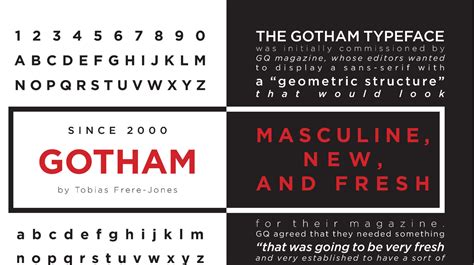
Gotham Font Alternative. This is perfect if you want to find something similar and affordable. This font is completely free to use.
Like gotham, it is inspired by urban signage: Quickly navigate to other fonts: But the characters are not as wide. Web you’re reading free font alternatives: This is perfect if you want to find something similar and affordable. Intro · apercu · avenir · circular · din · futura · gotham · helvetica · proxima nova · times new roman. Web from gotham light alternatives to gotham black fonts, gotham book fonts, gotham bolds and more! Web vision is another great free alternative to gotham font. In this case buenos aires rather than new york. This font is completely free to use.
Web you’re reading free font alternatives: This is perfect if you want to find something similar and affordable. Quickly navigate to other fonts: Web for a totally free gotham alternative, julieta ulanovsky’s montserrat is available on google fonts. But the characters are not as wide. Like gotham, it is inspired by urban signage: Web from gotham light alternatives to gotham black fonts, gotham book fonts, gotham bolds and more! In this case buenos aires rather than new york. Web vision is another great free alternative to gotham font. This font is completely free to use. Web you’re reading free font alternatives: